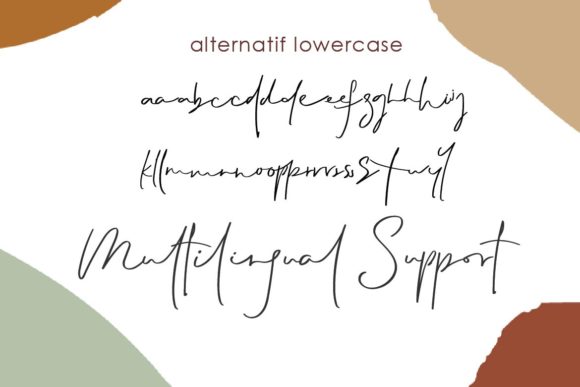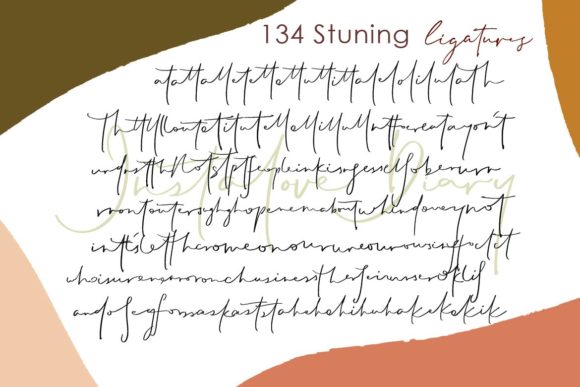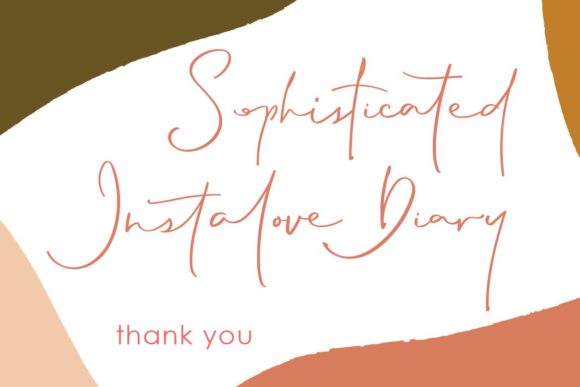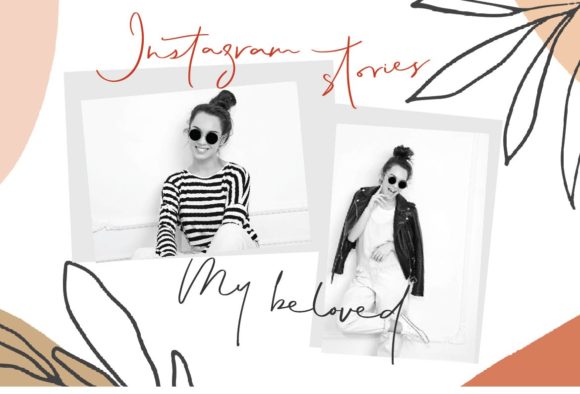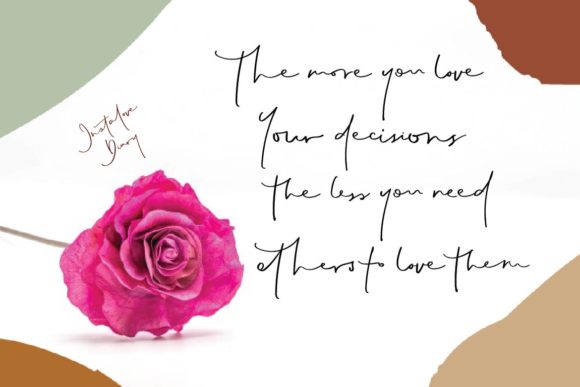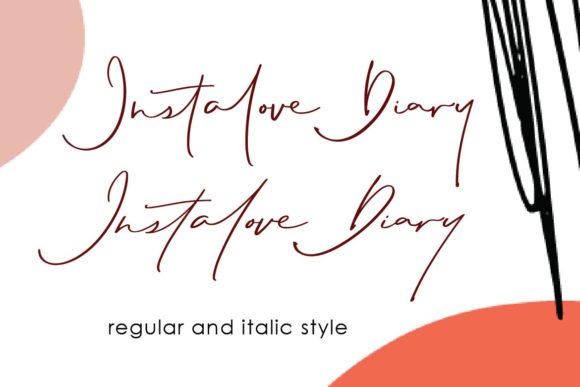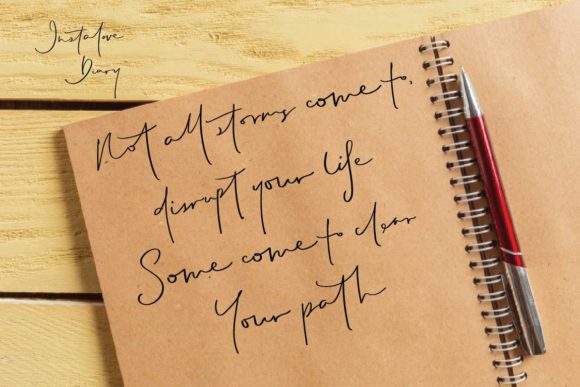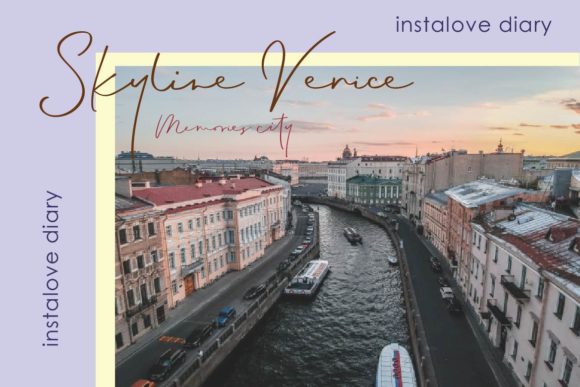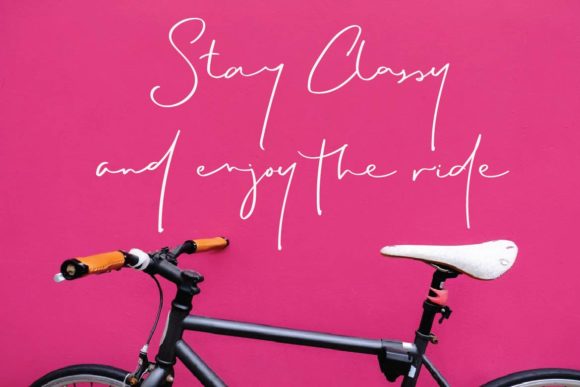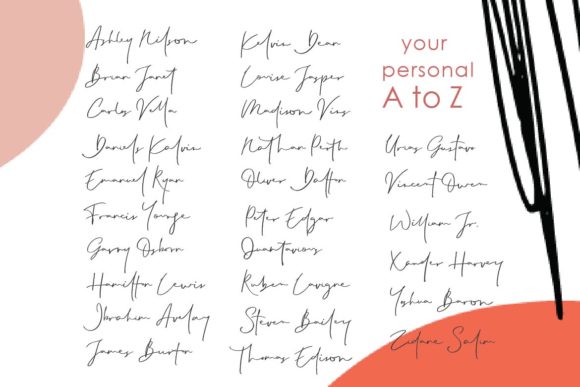
Instalove Diary Font
About Instalove Diary Font
Instalove Diary is a magical handwritten font carefully created with a touch of elegance. This font is the perfect font for making original and outstanding designs.